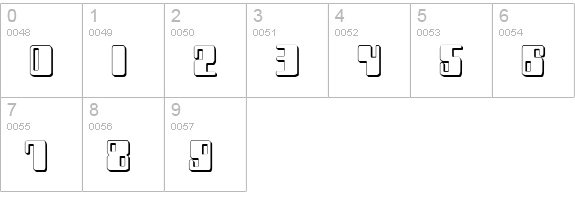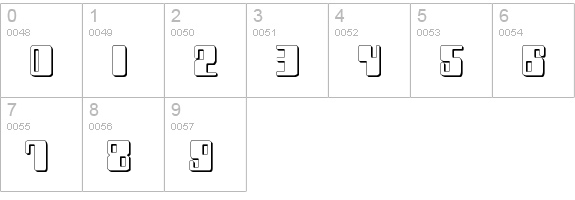
Zyborgs 3D Font Details
Zyborgs 3D font is a futuristic and innovative typeface that brings a whole new dimension to your design projects. With its sleek and modern design, Zyborgs 3D font is perfect for adding a touch of sophistication to any project. The 3D effect gives the letters a sense of depth and dimension, making them stand out on the page. This unique font is not only visually striking but also incredibly versatile. Whether you're designing a logo, poster, or website, Zyborgs 3D font is sure to make a bold statement. Its clean lines and geometric shapes give it a contemporary feel that is perfect for any modern design project. And the best part? Zyborgs 3D font is available for free download at FontsMarket.com. So why wait? Add a touch of futuristic flair to your designs with Zyborgs 3D font today!